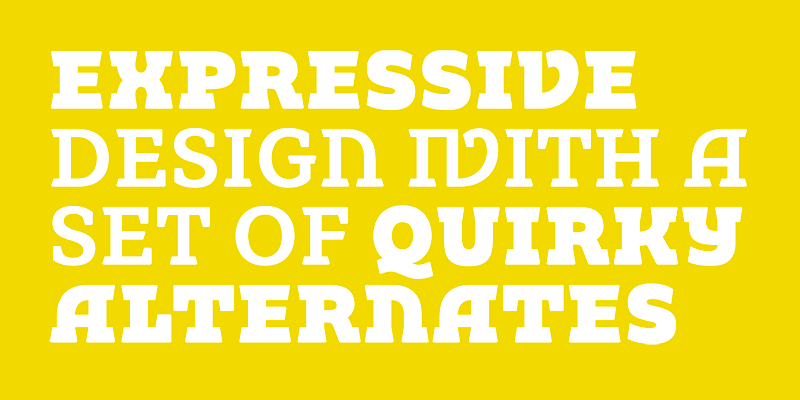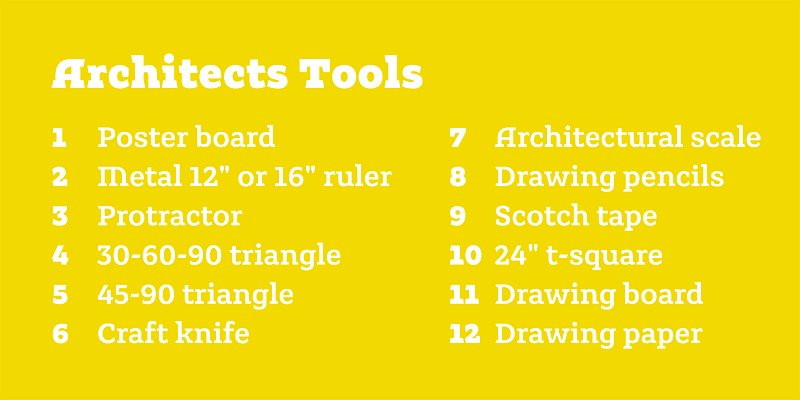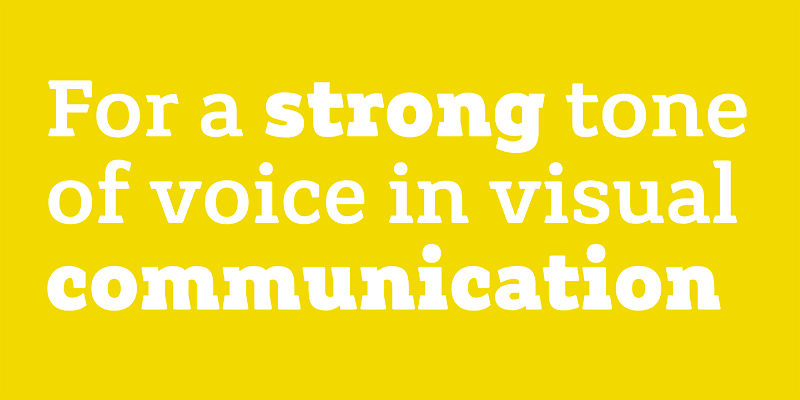
Grueber is a solid, slab serif font family inspired by the drawings of Austrian architect Paul Grueber. Grueber is a strong tone of voice in visual communication.